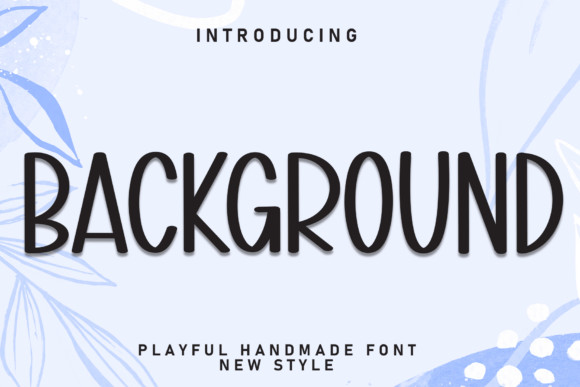
Introducing Background Font: The Ultimate Display Font for Modern Designs
In the world of typography, fonts play a crucial role in conveying the tone and personality of a brand or design. When it comes to creating visually appealing and engaging content, the right font can make all the difference. This is where Background Font comes in – a playful and versatile display font that adds a cheerful and modern touch to any design.
What is Background Font?
Background Font is a tall, rounded letter style font that boasts a clean yet fun appearance. Its unique design makes it perfect for a wide range of applications, from branding and posters to packaging and social media graphics. Whether you’re looking to create eye-catching headings or add a touch of personality to your creative projects, Background Font is the ideal choice.
Key Features of Background Font
- Tall and Rounded Letter Style: Background Font features a distinctive tall and rounded letter style that sets it apart from other fonts.
- Clean and Fun Appearance: The font’s clean lines and fun design make it perfect for creating visually appealing content.
- Versatile: Background Font is highly versatile and can be used for a wide range of applications, from branding to social media graphics.
- Cheerful and Modern: The font’s unique design adds a cheerful and modern touch to any design.
Uses of Background Font
Background Font is perfect for a variety of design applications, including:
- Branding: Use Background Font to create a unique and memorable brand identity.
- Posters: Add a touch of personality to your posters with Background Font’s clean and fun design.
- Packaging: Use Background Font to create eye-catching packaging that stands out on store shelves.
- Social Media Graphics: Add a modern touch to your social media graphics with Background Font’s unique design.
- Creative Projects: Use Background Font to add a touch of charm and approachability to your creative projects.
Benefits of Using Background Font
There are several benefits to using Background Font in your designs, including:
- Unique Design: Background Font’s unique design sets it apart from other fonts and adds a touch of personality to your designs.
- Versatility: The font’s versatility makes it perfect for a wide range of applications.
- Easy to Read: Background Font’s clean design makes it easy to read, even at smaller sizes.
- Modern and Cheerful: The font’s modern and cheerful design adds a touch of charm and approachability to your text.
How to Use Background Font
Tips for Using Background Font
- Use it for Headings: Background Font is perfect for creating eye-catching headings that add a touch of personality to your designs.
- Experiment with Colors: Try using Background Font with different colors to create a unique and eye-catching design.
- Pair it with Other Fonts: Background Font pairs well with other fonts, so feel free to experiment with different font combinations.
In conclusion, Background Font is a playful and versatile display font that adds a cheerful and modern touch to any design. Its clean yet fun appearance makes it perfect for a wide range of applications, from branding and posters to packaging and social media graphics. With its unique design, versatility, and ease of use, Background Font is the perfect choice for designers looking to add a touch of personality to their designs.